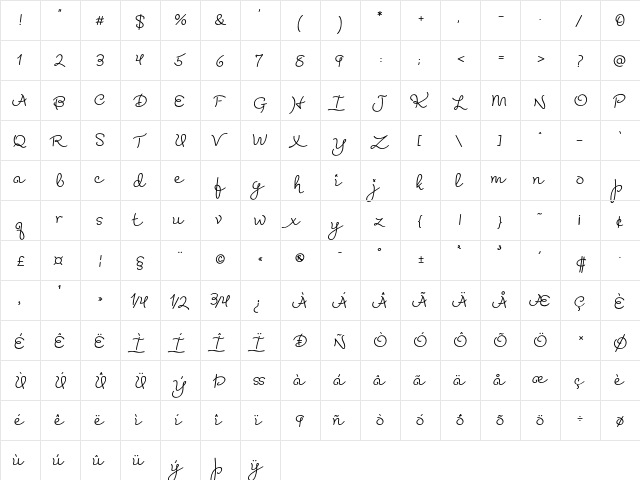
Madeleine Regular Font Preview
Madeleine Regular
Madeleine Regular Font Details
| Foundry | Jeremy Dooley |
Design Context for Madeleine Typeface
Madeleine takes a measured approach to typography — its balanced proportions and neutral character make it a reliable workhorse for both digital and print work.